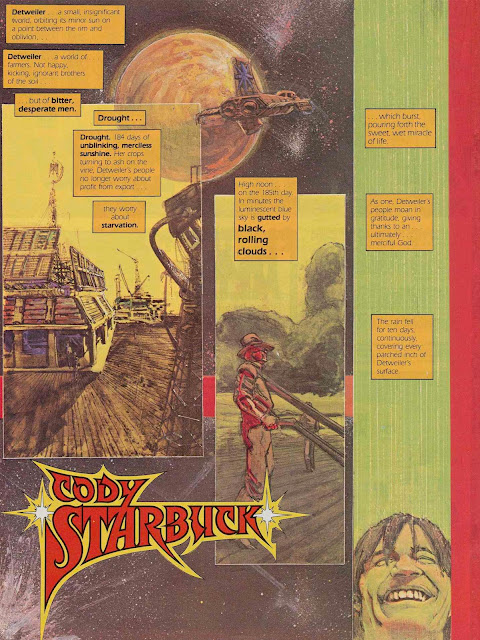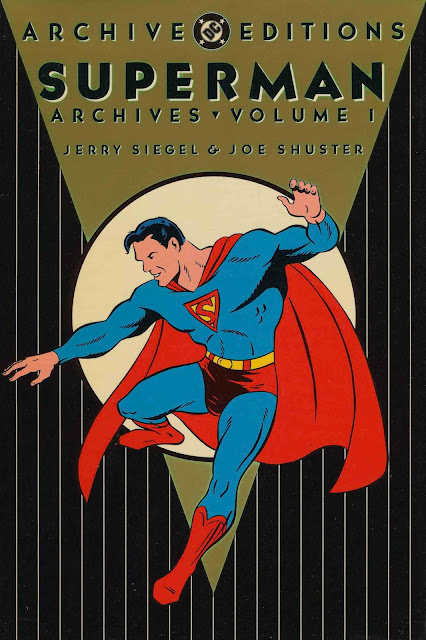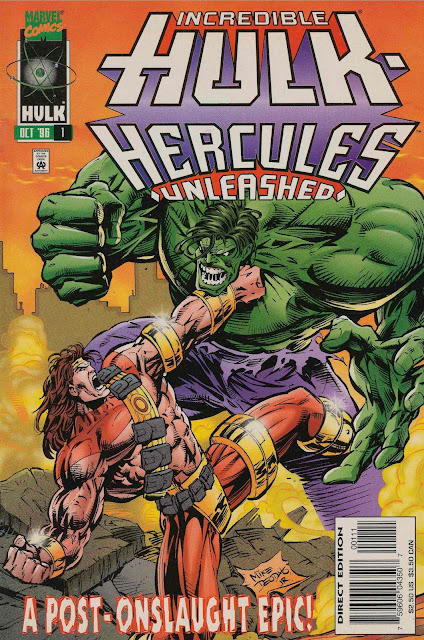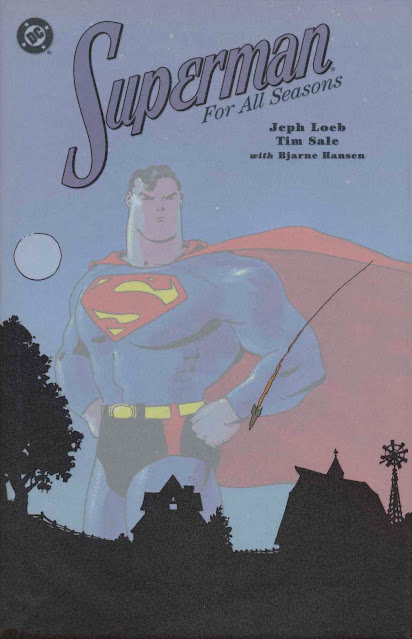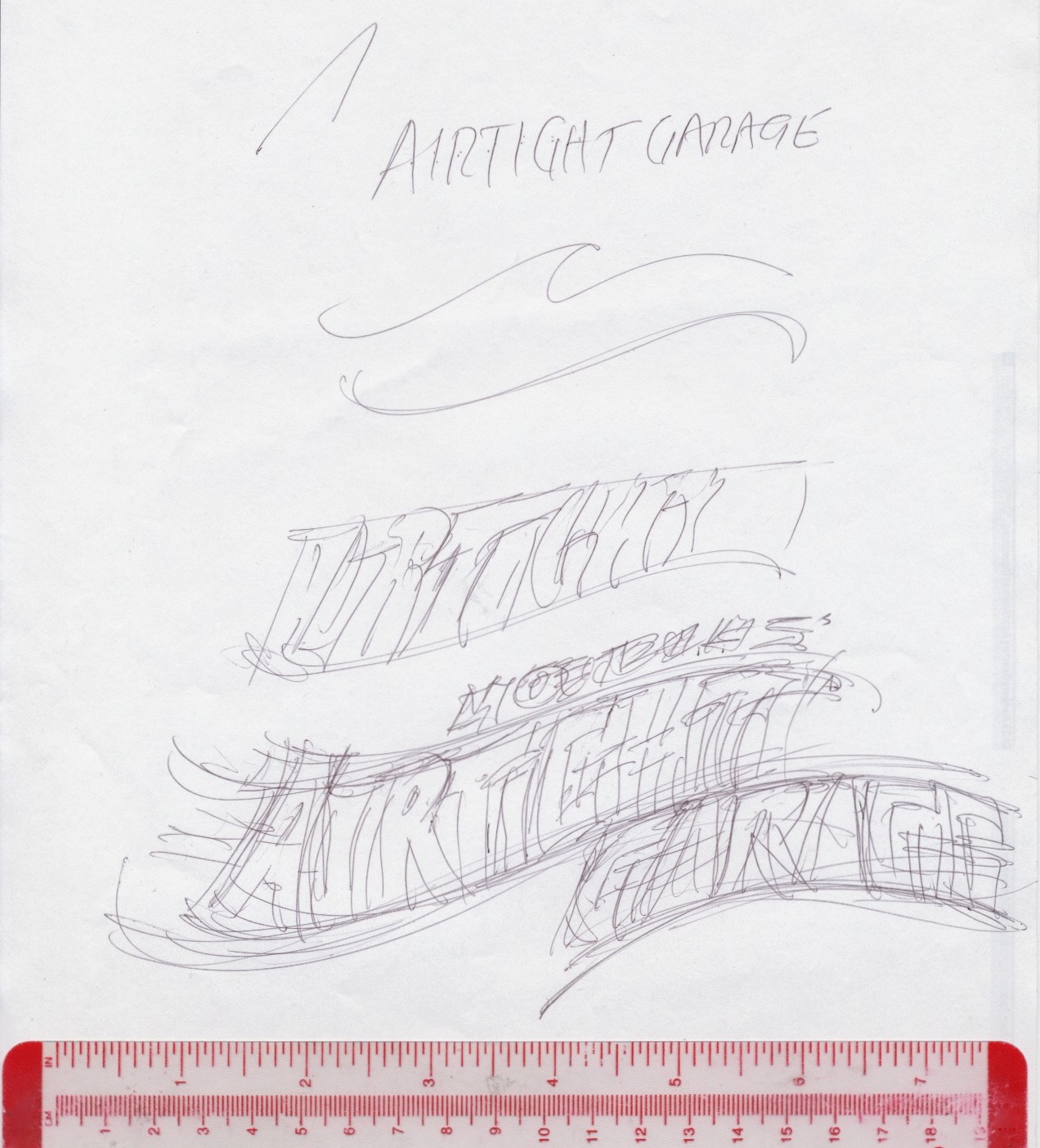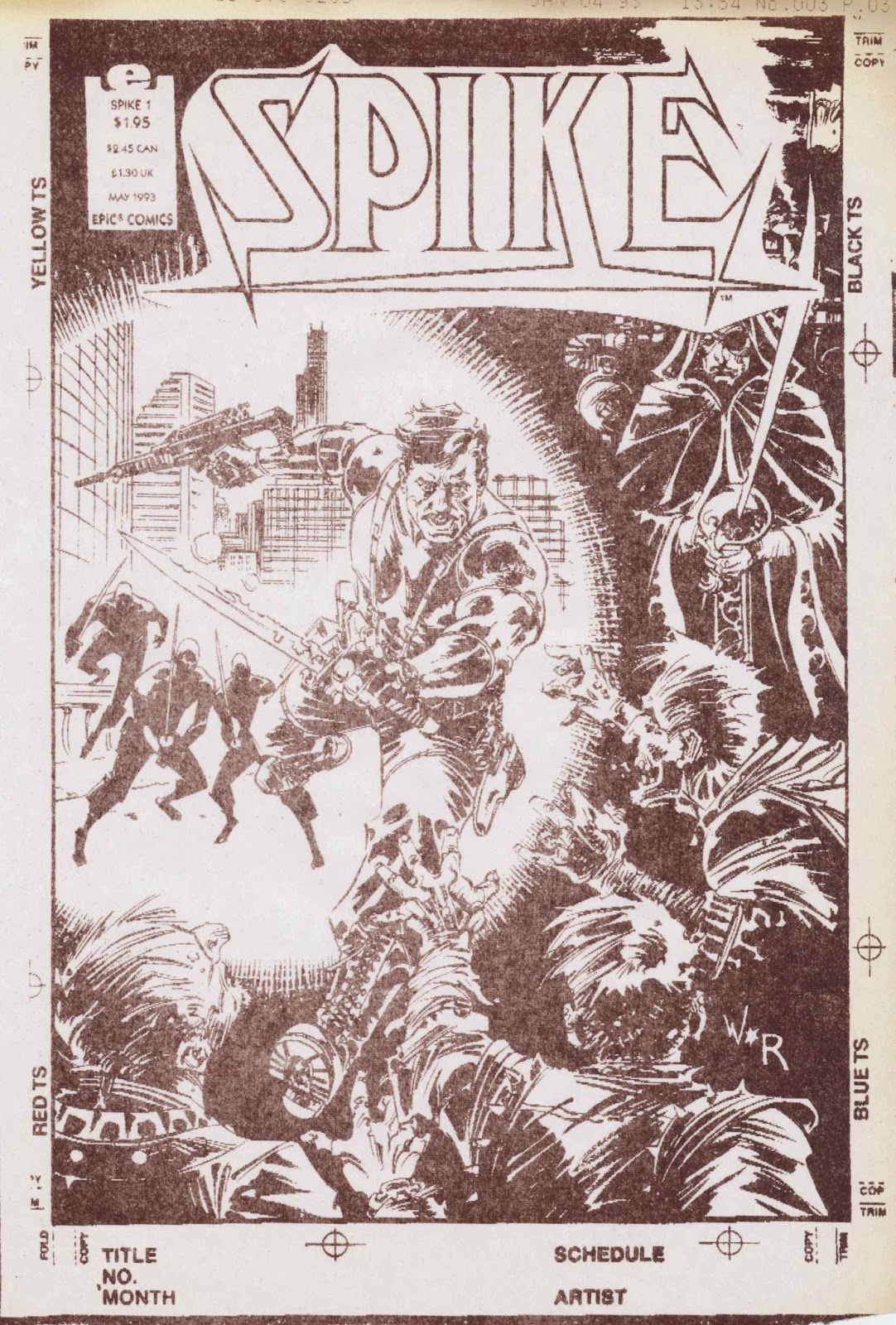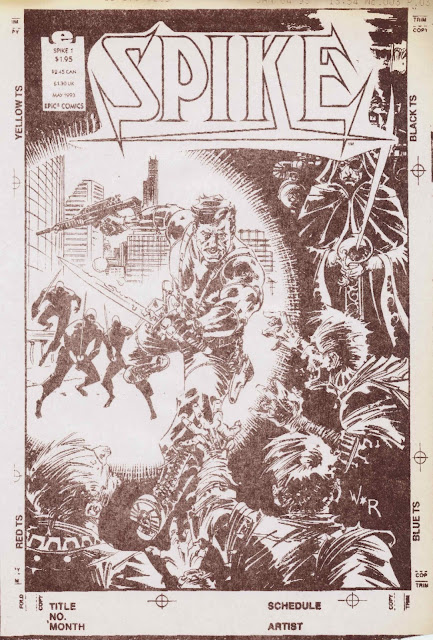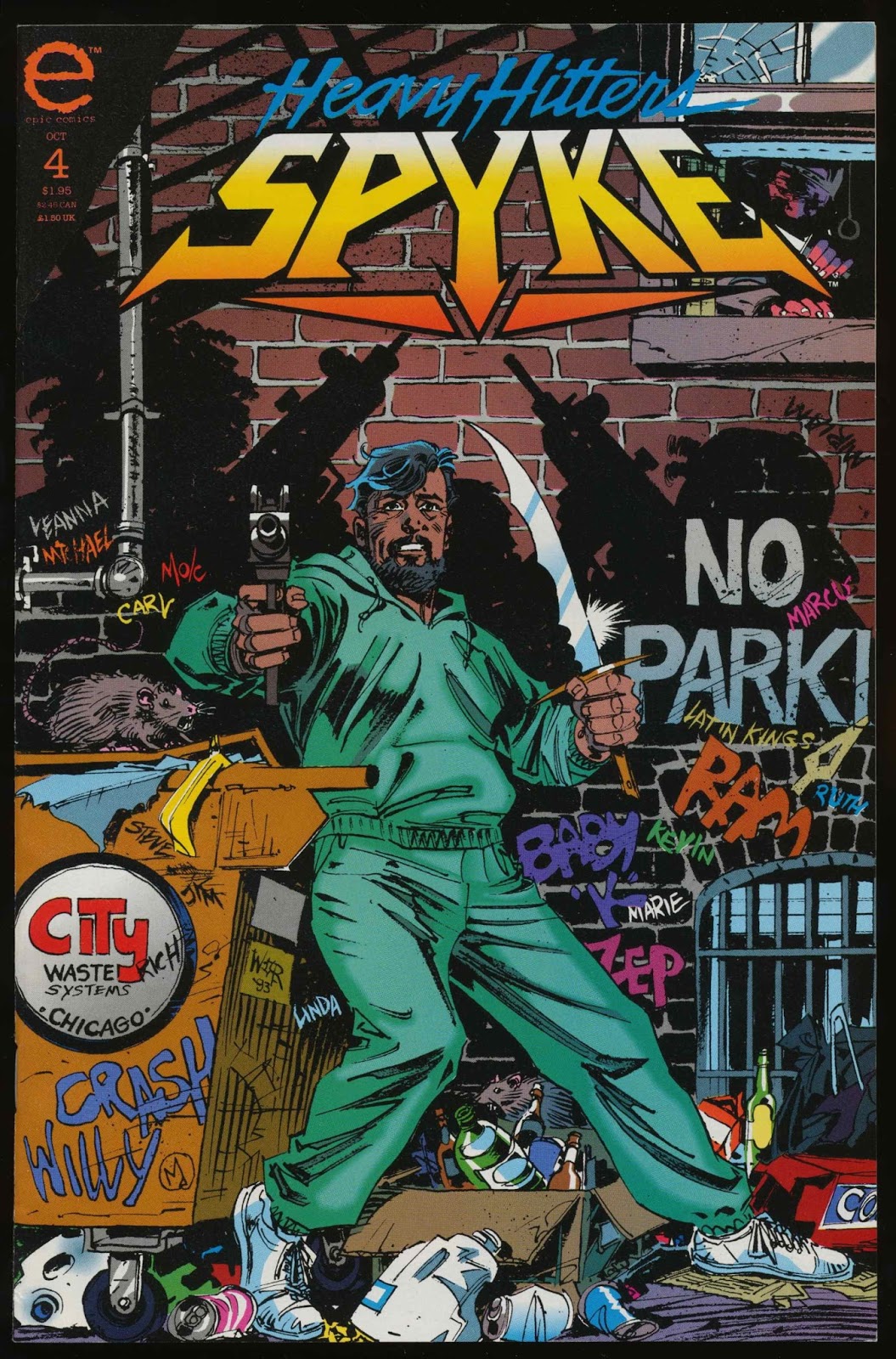
Published works are presented in more or less alphabetical order. In
most cases, the first appearance of the works are shown. Following
the titles are the people who commissioned the work, the publisher
or client, and the year of publication.
THE ADVENTURES OF SUPERMAN
Richard Bruning, Design Director, DC Comics, 1987
AGENTS OF LAW
Marilee Hord, Editor, Dark Horse Comics, 1995
AIRTIGHT GARAGE
Marie Javins, Editor, Epic Comics, 1993
ALPHA CENTURION
Georg Brewer, Design Director, DC Comics, 1996
AMERICAN FLAGG!
Howard Chaykin, Creator, First Comics, 1983
ARMAGEDDON: 2001
Curtis King, Art Director, DC Comics, 1991
ARMAGEDDON: THE ALIEN AGENDA
Curtis King, Art Director, DC Comics, 1991
ARMAGEDDON: INFERNO
Curtis King, Art Director, DC Comics, 1992
ARSENAL
Georg Brewer, Design Director, DC Comics, 1998
THE ART OF MOEBIUS
Byron Preiss, Editor, Berkley Books, 1989
Alex Jay used the typeface ITC Eras for the book; book designed by Robbin
Brosterman.
AVATAR
Curtis King, Art Director, DC Comics, 1991
THE BANK STREET BOOK OF CREEPY TALES
Byron Preiss, Editor
Pocket Books, 1989
There was no budget for hand-lettered logos so the titles were typeset.
The four books of comics are approximately digest-size.
THE BANK STREET BOOK OF FANTASY
THE BANK STREET BOOK OF MYSTERY
THE BANK STREET BOOK OF SCIENCE FICTION
BATMAN
Curtis King, Art Director, DC Comics, 1993
Two different covers for issue #500
BATMAN & DRACULA
Robbin Brosterman, Art Director, DC Comics, 1992
BATMAN: CASTLE OF THE BAT
Robbin Brosterman, Art Director, DC Comics, 1994
BATMAN: DEMON
Robbin Brosterman, Art Director, DC Comics, 1996
BATMAN: GORDON‘S LAW
Curtis King, Art Director, DC Comics, 1996
BATMAN: HOLY TERROR
Robbin Brosterman, Art Director, DC Comics, 1991
BATMAN PHANTOM STRANGER
Robbin Brosterman, Art Director, DC Comics, 1997
BATMAN: PREY
Robbin Brosterman, Art Director, DC Comics, 1990
BATMAN: SHAMAN
Robbin Brosterman, Art Director, DC Comics, 1993
BATMAN: STRANGE APPARITIONS
Robbin Brosterman, Art Director, DC Comics, 1999
BLACKMASK
Robbin Brosterman, Art Director, DC Comics, 1993
BLOODY MARY
Georg Brewer, Design Director, DC Comics/Helix, 1996
BUCKY O'HARE
Larry Hama, Creator, Continuity Comics, 1986
BUCKY O’HARE
Larry Hama, Creator; Neal Adams, Publisher, Continuity Comics, 1991
Main character originally named Buck Bunny.
CAGE
Marc McLaurin, Editor, Marvel Comics, 1992
CALEB HAMMER
Jim Salicrup, Editor, Marvel Comics, 1980
Referral from Tom Orzechowski; “The Coming of” added by
another letterer
CAP’N QUCIK & A FOOZLE
Marshall Rogers, Creator, Eclipse Comics, 1984
Marshall Rogers furnished his logo sketch
CATWOMAN: HER SISTER’S KEEPER
Robbin Brosterman, Art Director, DC Comics, 1991
“Her Sister’s Keeper” was typeset.
CATWOMAN DEFIANT
Robbin Brosterman, Art Director, DC Comics, 1992
“Defiant” was typeset.
CATWOMAN
The 1992 title lettering was used for the 1993 series logo.
CINDER AND ASHE
Richard Bruning, Design Director, DC Comics, 1988
CLASH!
Robbin Brosterman, Art Director, DC Comics, 1991
Back cover detail: originally the viper heads art was part of the logo.
CLIVE BARKER'S THE HARROWERS
Marc McLaurin, Editor, Marvel Comics, 1993
“Raiders of the Abyss” was added by another letterer.
CLIVE BARKER’S HELLRAISER
Dan Chichester, Editor, Epic Comics, 1989
CODENAME: SPITFIRE
Bob Harras, Editor, Marvel Comics, 1987
CODY STARBUCK
Designed by Neal Adams; finished by Alex Jay
Howard Chaykin’s new Cody Starbuck story was picked up by Neal Adams’
Continuity Comics. Beginning in 1981 the story was serialized in Heavy
Metal, numbers 50 through 54.
THE COMPLETE JACK KIRBY
Greg Theakston, Publisher, Pure Imagination, 1997
The making of the logo is here.
CONAN SAGA
Larry Hama, Editor, Marvel Comics, 1988
CONTINUITY COMICS
Neal Adams, Art Director, 1982
Originally the flat edges of the uppercase C were perpendicular to
the baseline. In 1991, someone changed the angles of the edges.
COSMIC ODYSSEY
Richard Bruning, Art Director, DC Comics, 1988
COSMIC POWERS
Craig Anderson, Editor, Marvel Comics, 1994
“Thanos” created by another letterer
COSMIC POWERS UNLIMITED ... STARRING
Mark Gruenwald, Editor, Marvel Comics, 1995
“The Silver Surfer” created by another letterer.
COUNT DRACULA
Neal Adams, Publisher, Continuity Comics, 1981
Logo based on the typeface Hoffman; debuted in Echo of Futurepast
#5, April 1985; reprinted in Neal Adams Monsters, Vanguard
Productions, 2003
CROSSOVER CLASSICS: THE MARVEL/DC COLLECTION
Robbin Brosterman, Art Director, Marvel Comics, 1991
THE CRUSADERS